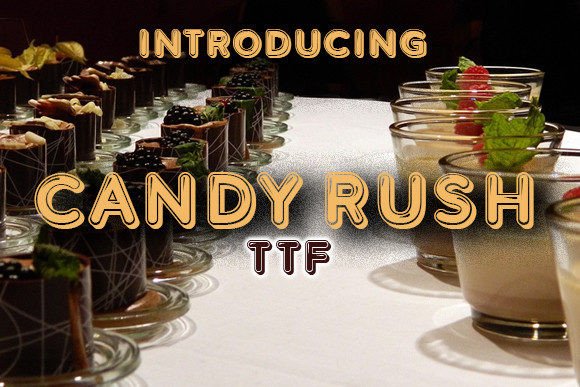
The Sweetest Font in Town: A Comprehensive Guide to Candy Rush Font
I’ll never forget the time I was working on a project for a client’s candy store. I had all the design elements in place, but something was missing – the perfect font. I scoured the internet, tried out dozens of fonts, but none seemed quite right. That was until I stumbled upon Candy Rush Font. It was like a breath of fresh air! The bubbly, playful vibe was exactly what I needed to bring the design to life. In this article, I’ll share my experience with Candy Rush Font, its features, and how to make the most of it in your designs.
An Honest Review of Candy Rush Font
Candy Rush Font has quickly become one of my go-to fonts for creative projects. Here’s what I love about it:
- ✨ Bubbly and playful vibe: Candy Rush Font has a fun, energetic feel that’s perfect for designs that need a bit of whimsy.
- ✅ Highly legible: Despite its playful nature, the font is surprisingly easy to read, even at smaller sizes.
- 🎉 Versatile: Candy Rush Font works well for a wide range of designs, from posters and flyers to social media graphics and branding.
Of course, no font is perfect, and Candy Rush Font has a few quirks:
- 🤔 Limited use for body text: While the font is legible, it’s not ideal for long blocks of text. Stick to headlines, titles, and short paragraphs for best results.
The Backstory of Candy Rush Font
Candy Rush Font was designed by a team of creatives who wanted to capture the fun, playful spirit of childhood. Inspired by the colorful world of candy and sweets, they crafted a font that’s both whimsical and elegant. With its bubbly personality and versatile design, Candy Rush Font is perfect for a wide range of creative projects.
| What type of designs is Candy Rush Font best suited for? | Candy Rush Font is perfect for designs that require a playful, whimsical touch, such as posters, flyers, social media graphics, and branding. |